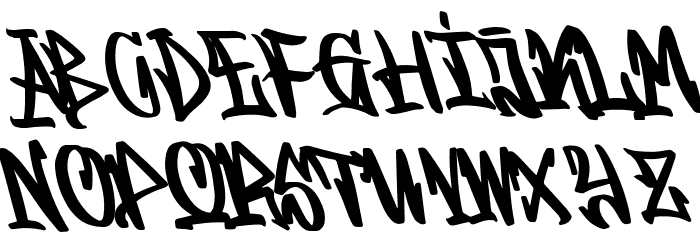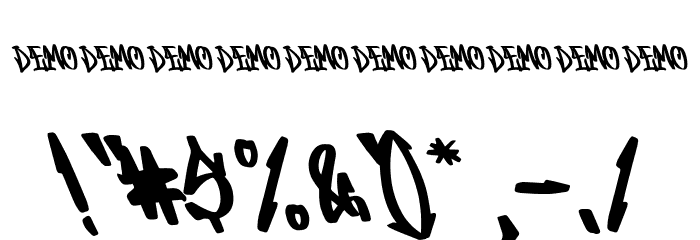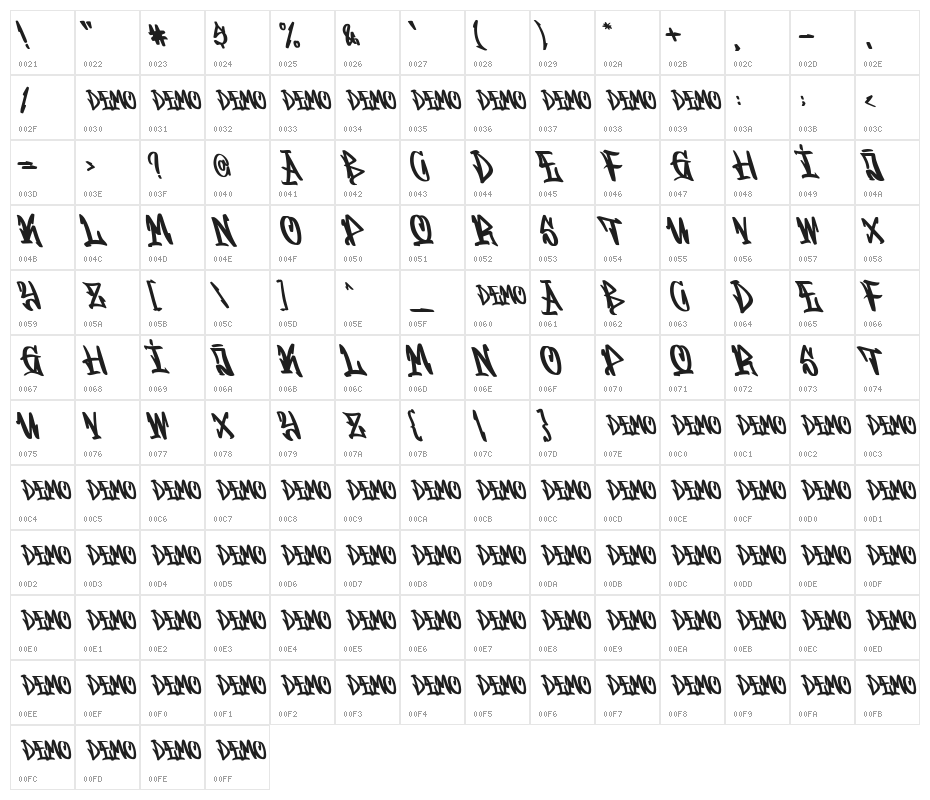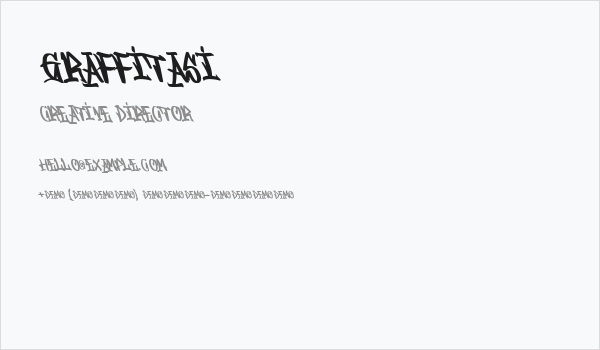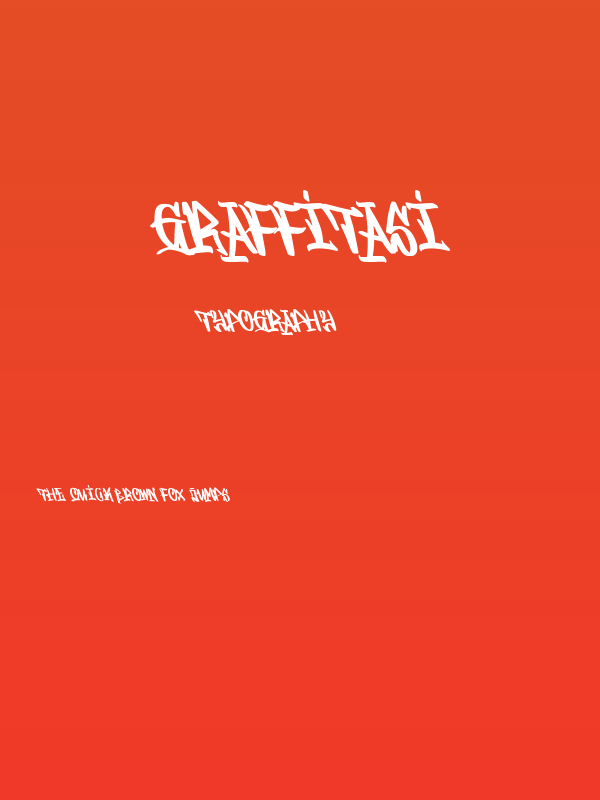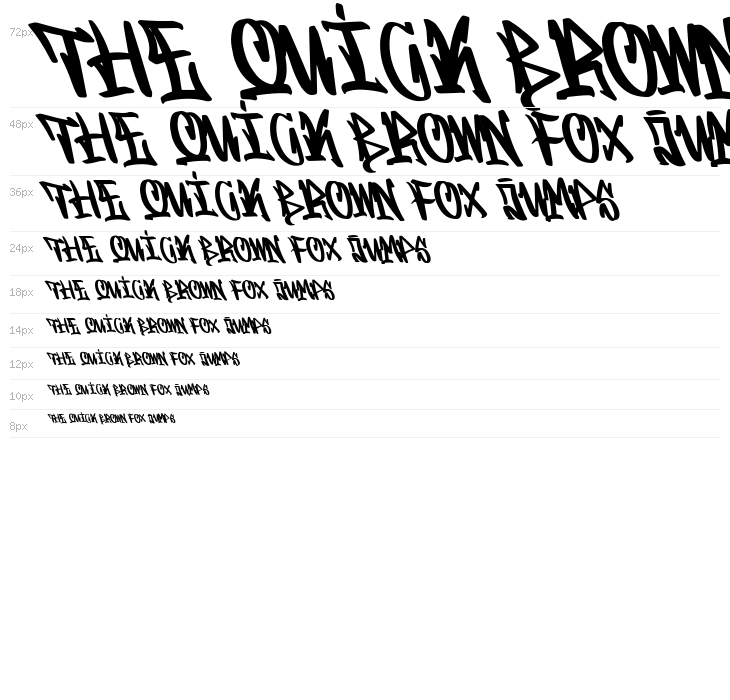
Graffitasi Font
This font embodies the raw, expressive style of urban graffiti. Its bold, angular letters are reminiscent of street art, with exaggerated curves and sharp edges that create a sense of movement and energy. The uppercase and lowercase letters maintain a consistent style, with each character appearing as if it were painted with a spray can. The numbers and special characters follow the same aesthetic, adding to the cohesive look. This font is ideal for projects that aim to capture the rebellious and dynamic spirit of street culture.
A bold, graffiti-inspired font with angular, energetic characters.
- Font: Graffitasi
- Proposed Projects: Perfect for street art-themed designs, music album covers, urban event posters, and edgy branding projects.
- Character Spacing: Tight
- Overall Style: Urban, Energetic, Rebellious
- Use Case: Logos, Posters, Album Covers